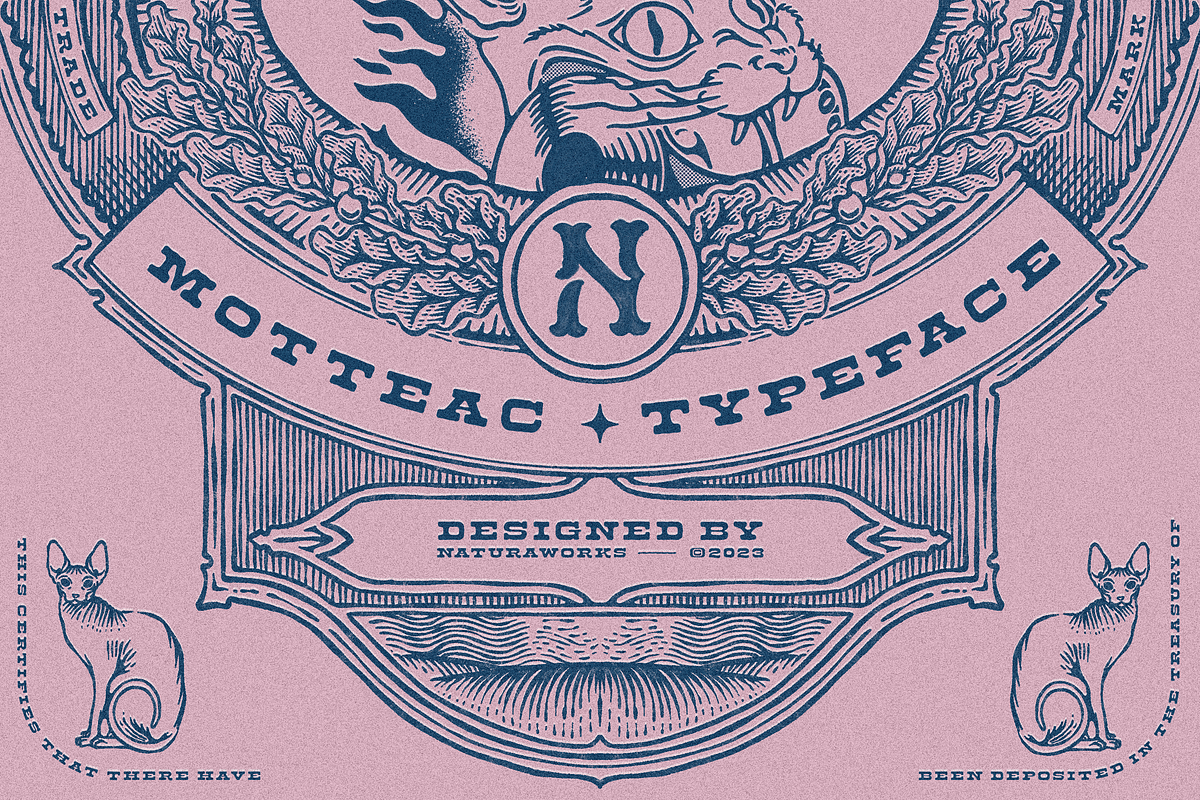
MOTTEAC DISPLAY TYPEFACE Free Download
Motteac Display Typeface Free Download
Motteac Display Typeface Free Download is a bold and contemporary display font designed to make a strong impact. With its clean lines, sharp edges, and geometric forms, this typeface is perfect for headlines, logos, posters, branding, and any design project that requires attention-grabbing typography.
The Motteac typeface is ideal for modern, minimalist designs, offering both strength and readability. Whether you're creating a bold brand identity, eye-catching promotional material, or dynamic digital content, this font delivers clarity and visual appeal.
Make a bold statement with the modern, clean style of Motteac!